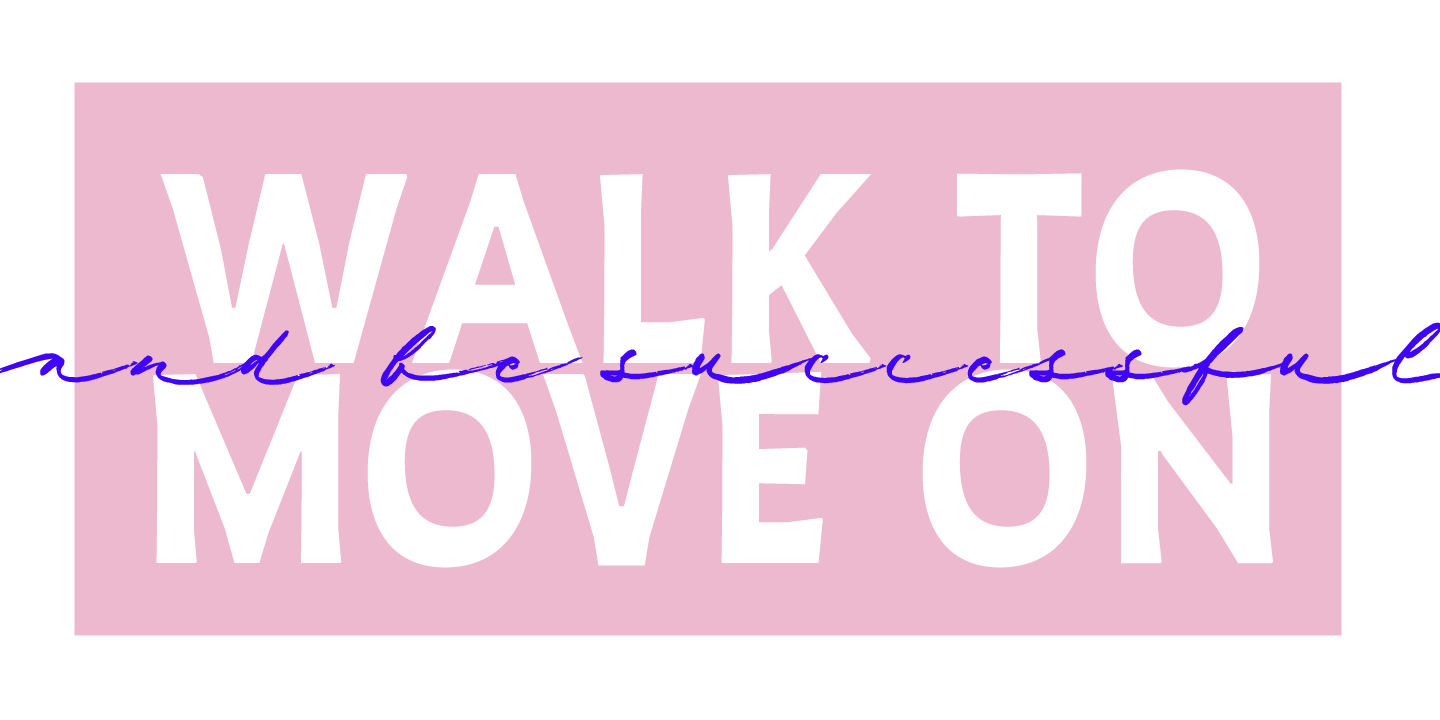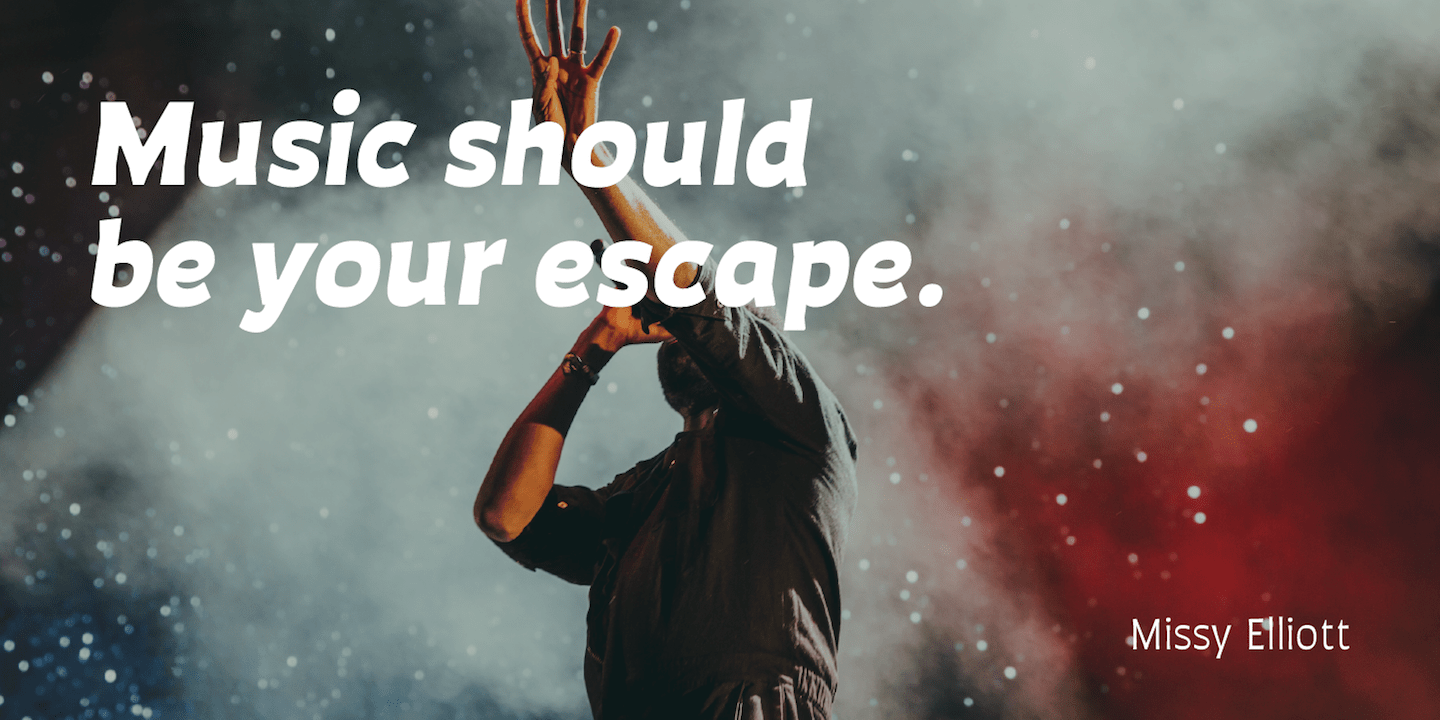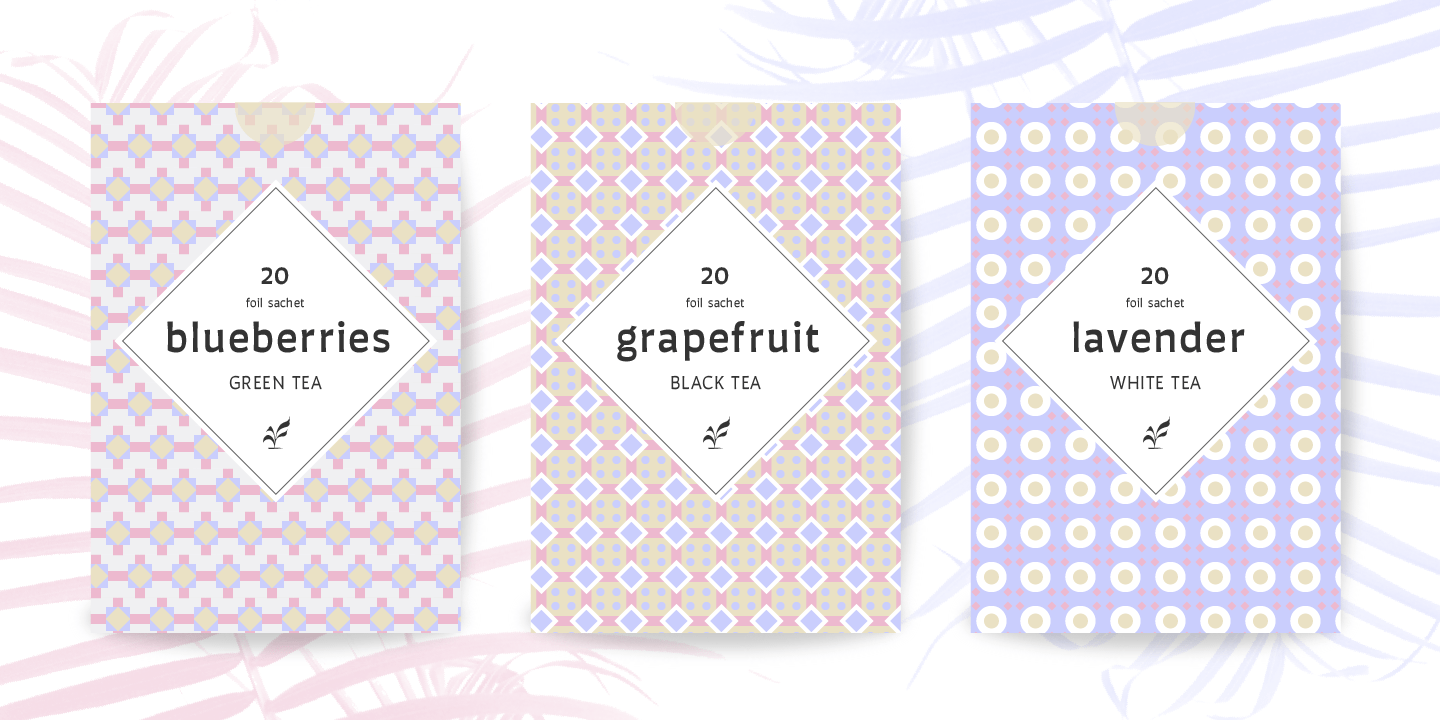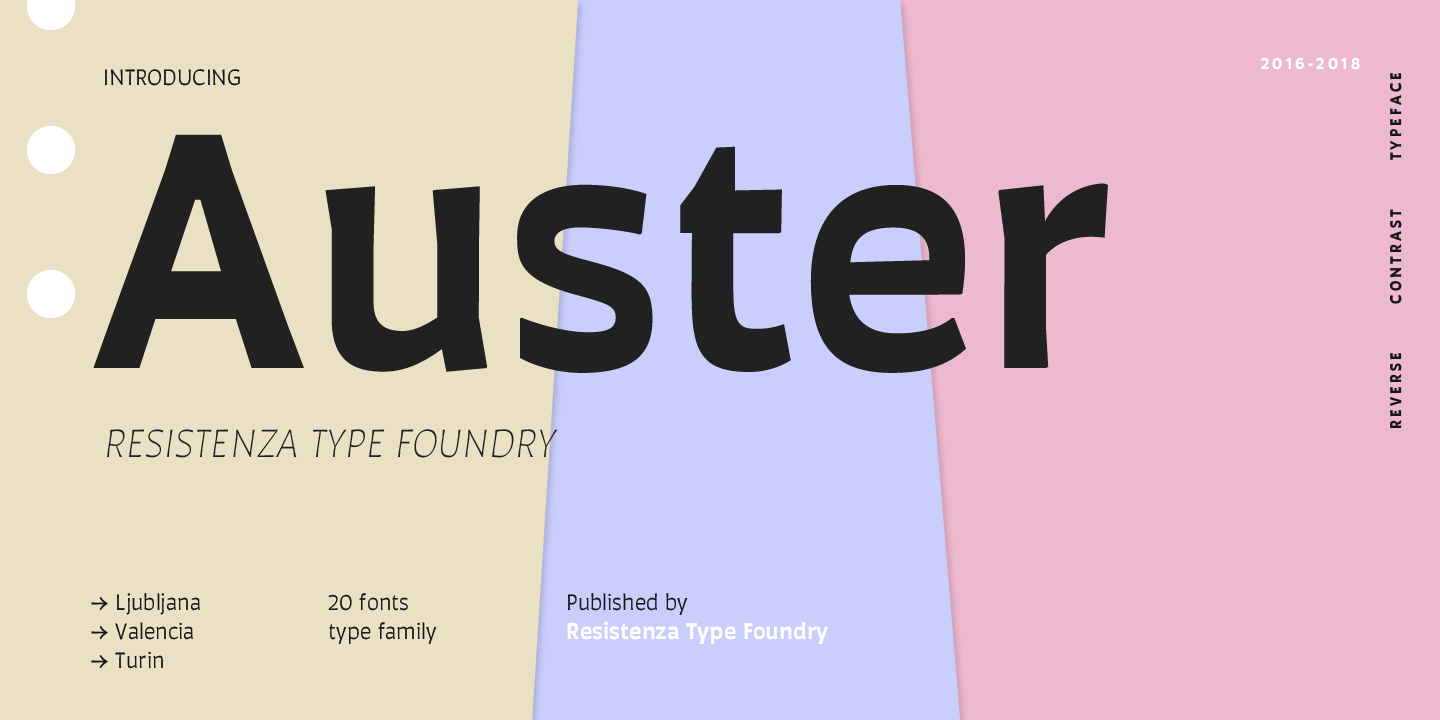
Auster, A Sans with Flair! Auster packs sensational personality in its fine-tuned forms. Confident and quirky, yet comfortable to read, this distinctive san serif family stands out from the crowd. The curves cinch and strokes flair in unconventional…